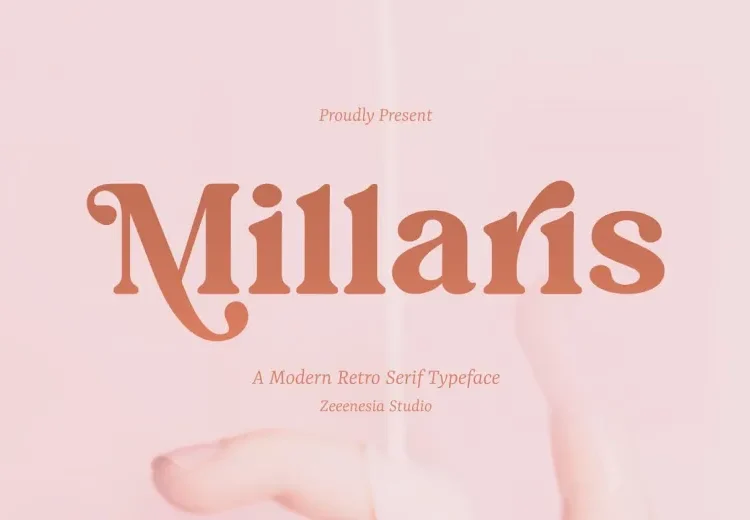
Millaris Font
Millaris is an elegant and modern serif typeface designed to enhance a range of design applications. With its refined and sophisticated style, Millaris excels in branding, advertising, packaging, logotypes, and large-scale headlines or titles. Its versatility also makes it a fantastic choice for editorial use.
Crafted with a variety of styles and open type features, Millaris ensures that your work stands out with stunning beauty and professionalism. The font’s attention to detail guarantees exceptional results, making it an excellent choice for projects that demand both elegance and impact.